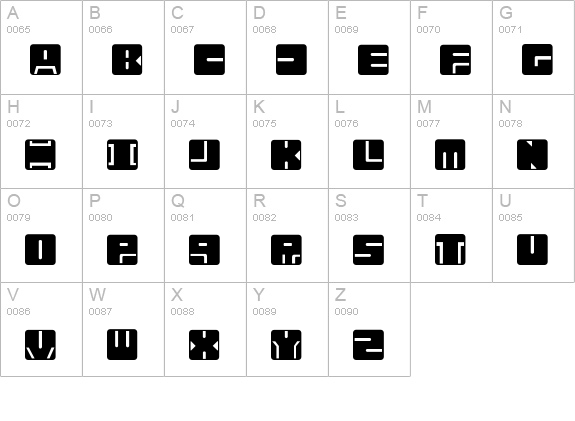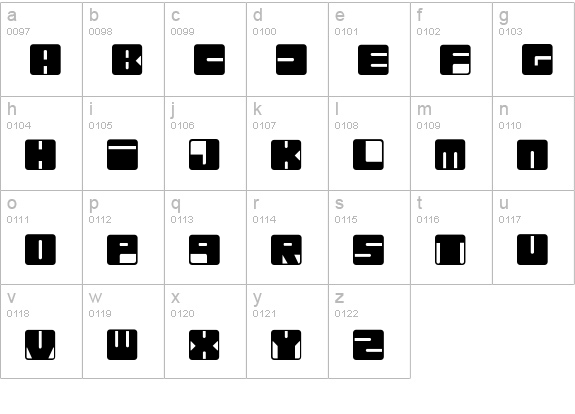
Infobubble2 Font Details
Infobubble2 font is a stunning typeface that exudes modernity and elegance. With its sleek and clean lines, this font is perfect for adding a touch of sophistication to any design project. Whether you're creating a logo, website, or even a poster, Infobubble2 font will elevate your design to the next level. One of the best things about Infobubble2 font is that it is available for free. Yes, you read that right! This remarkable font can be freely downloaded at FontsMarket.com, making it accessible to designers and enthusiasts alike. With its generous availability, Infobubble2 font allows for unlimited creativity without any financial constraints. Infobubble2 font's versatility is another reason why it stands out from the rest. Its clean and minimalist design makes it suitable for a wide range of applications, from corporate branding to personal projects. Its legibility ensures that your message is conveyed with clarity and impact, no matter the size or medium. The attention to detail in Infobubble2 font is truly remarkable. Each letter and character has been meticulously crafted to ensure a seamless and harmonious overall appearance. The result is a font that is not only visually appealing but also a pleasure to work with. In addition to its aesthetic appeal, Infobubble2 font also offers a wide range of glyphs and special characters, allowing for endless creative possibilities. With its extensive character set, you can easily customize your designs and add a unique touch to your work. Infobubble2 font is the perfect choice for designers who are looking for a versatile, modern, and elegant typeface. And the best part? It is available for free download at FontsMarket.com. So don't miss out on this incredible opportunity to enhance your designs with this remarkable font. Download Infobubble2 font today and let your creativity soar!